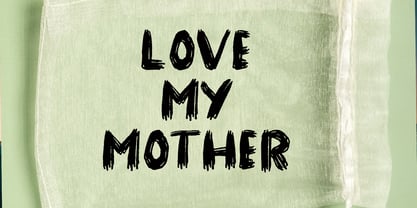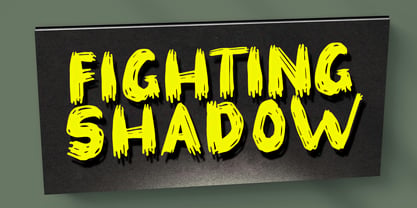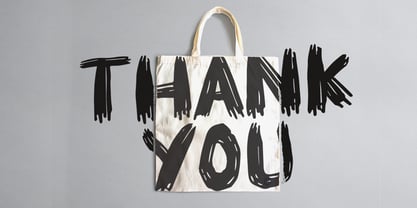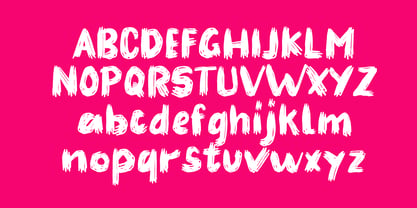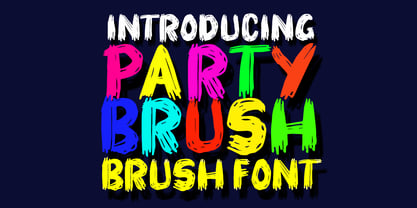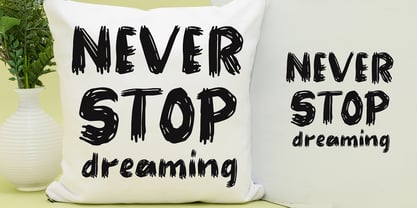
Party brush
por Sulthan Studio
La familia tipográfica Party brush fue diseñada por Nasrullah y publicada por Sulthan Studio. Party brush contiene 1 estilos. Más información sobre esta familia
Dive into the pinnacle of sophistication created with a uniquely designed brush font. Born from true handiwork, refined to perfection, this typeface style pays homage to the pure and unchanging essence of classic sketching. Exuding a deep-rooted rustic charm, this font paints a remarkably accurate picture of organically handwritten characters. Experience the real, tangible charm of handwriting, carefully reflected in every curve of this highly unique font.
Diseñadores: Nasrullah
Fundición: Sulthan Studio